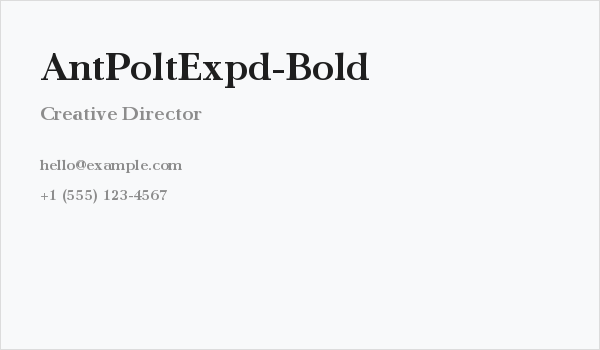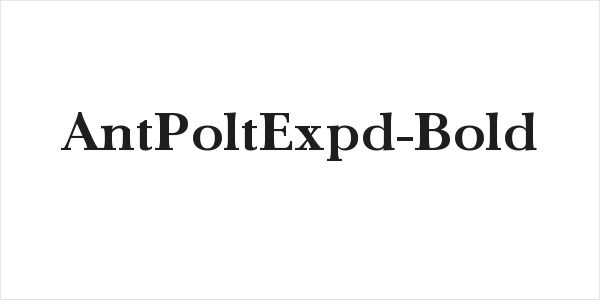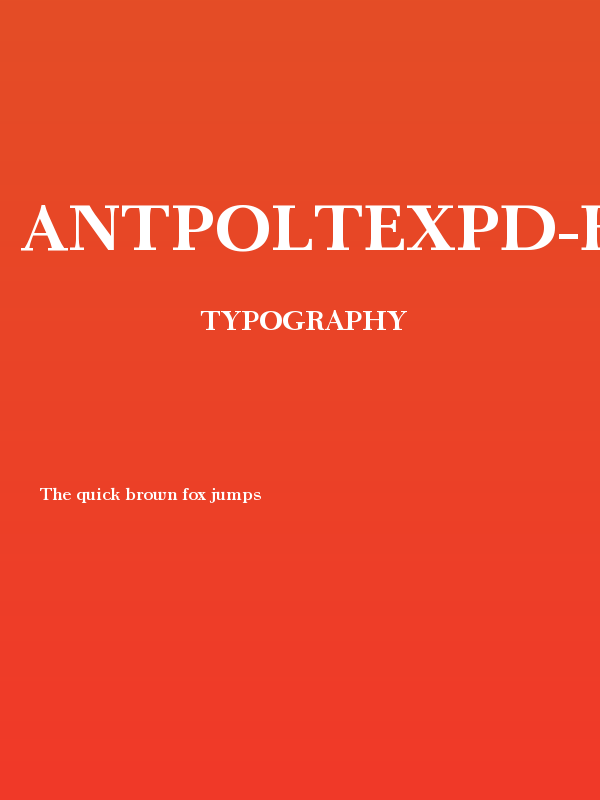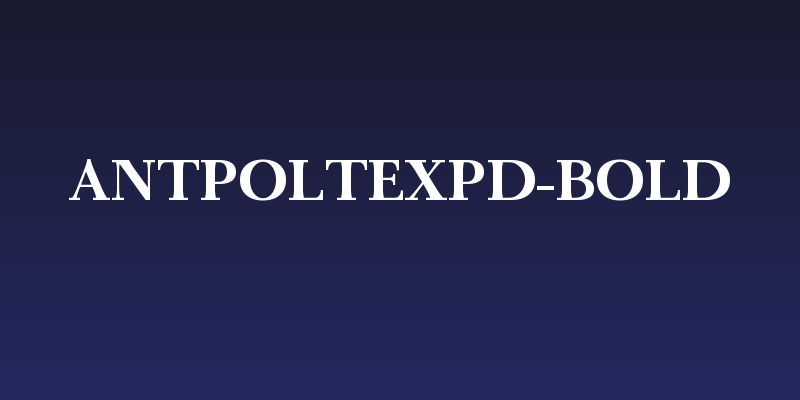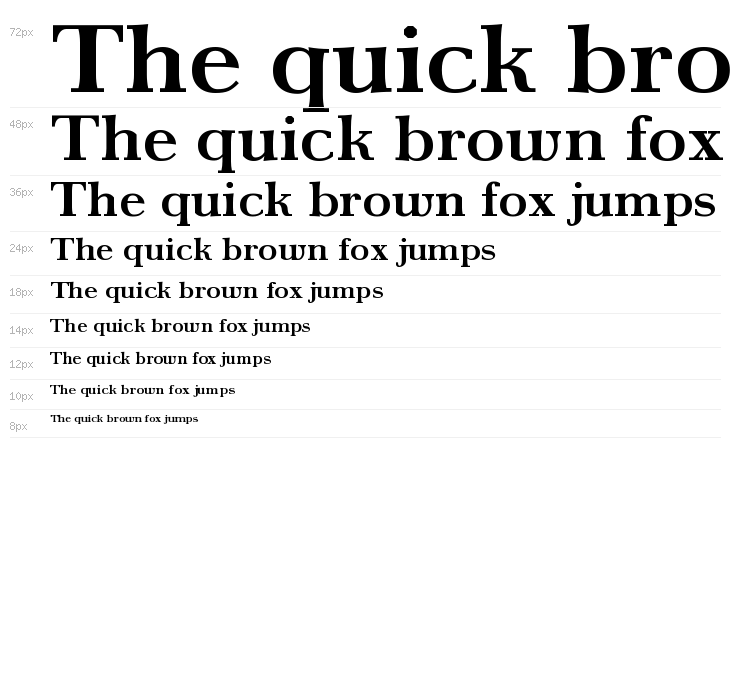
AntPoltExpd-Bold Font
AntPoltExpd-Bold Description
This font features a bold and expansive design, characterized by its strong and authoritative presence. The serifs are pronounced, adding a classic touch to the overall modern aesthetic. The uppercase letters are robust and commanding, while the lowercase letters maintain a consistent weight, ensuring readability. The numerals are clear and well-defined, making them suitable for various applications. The special characters are distinct and harmonize well with the rest of the typeface, providing versatility in design projects.
| Use Case | Headlines, Logos, Editorial design |
| Proposed Projects | Ideal for headlines, branding, editorial design, and signage where a strong, authoritative presence is desired. |